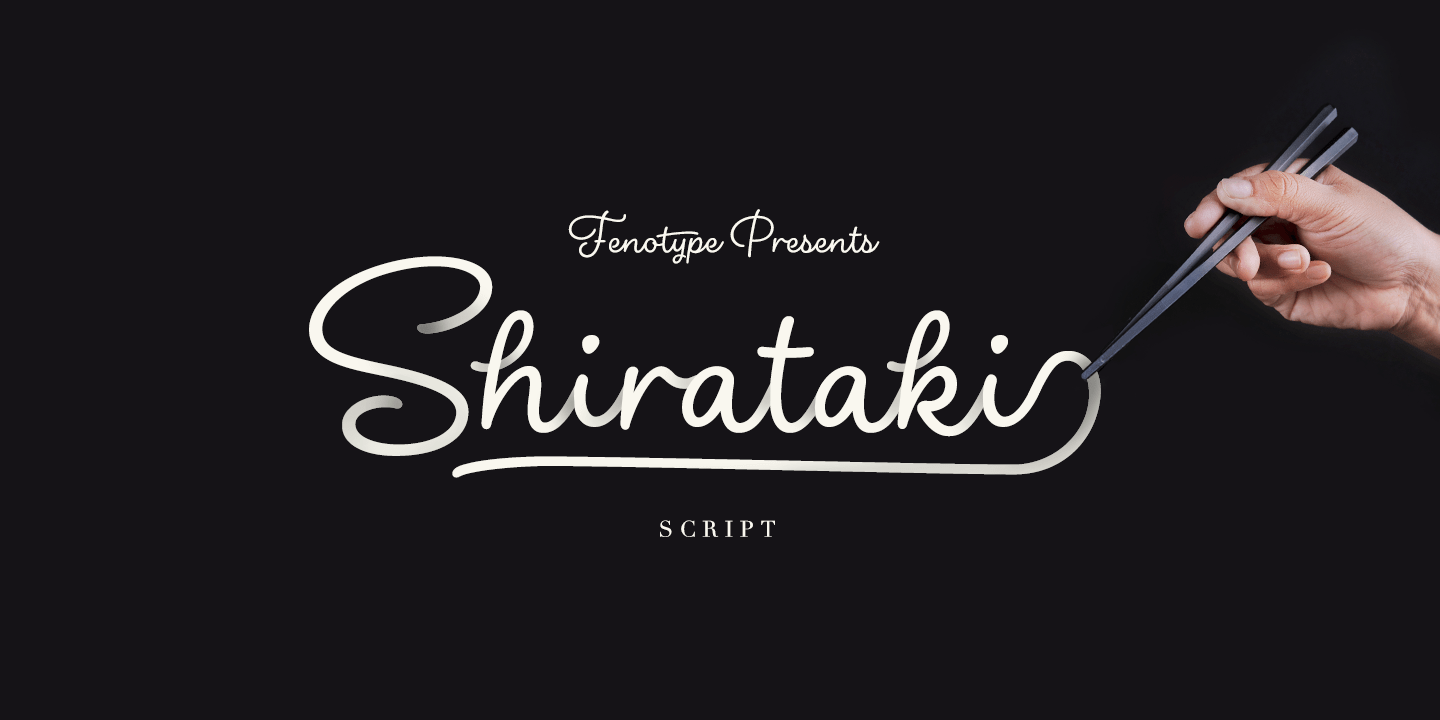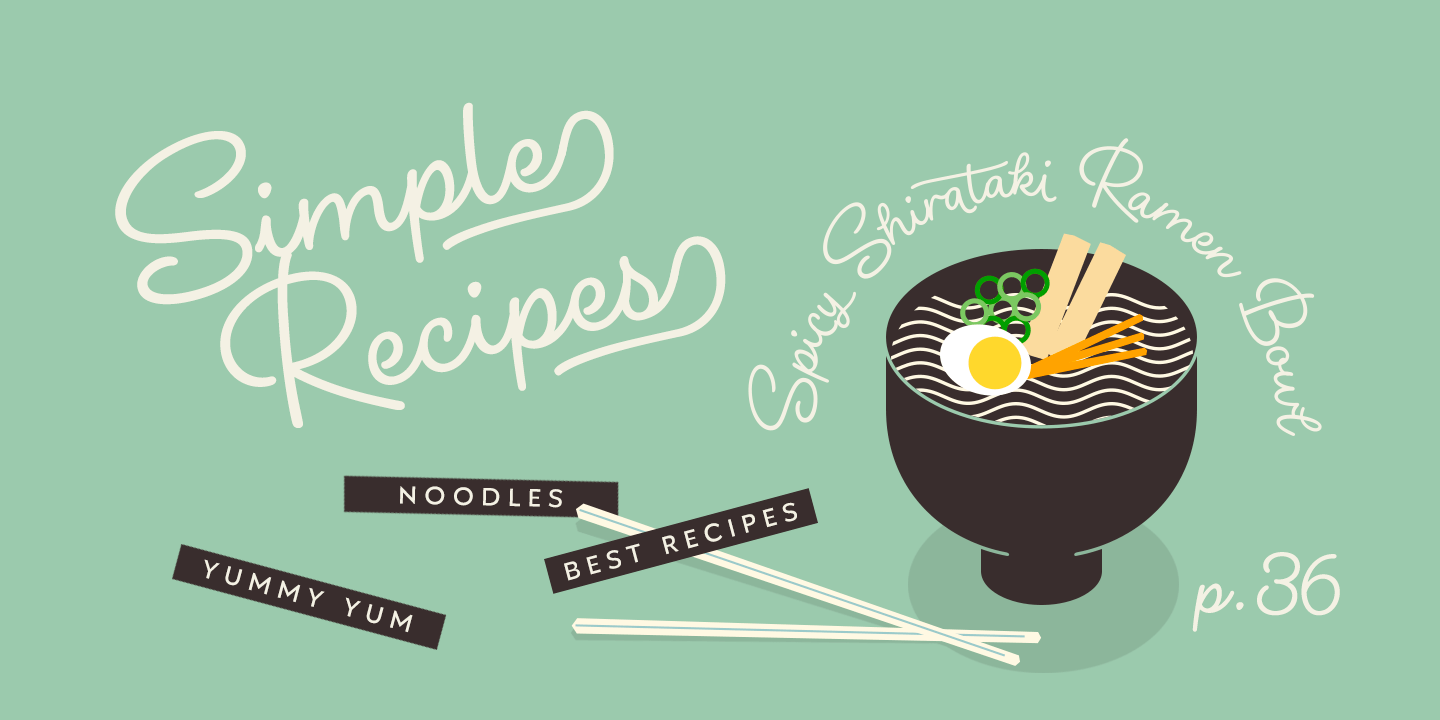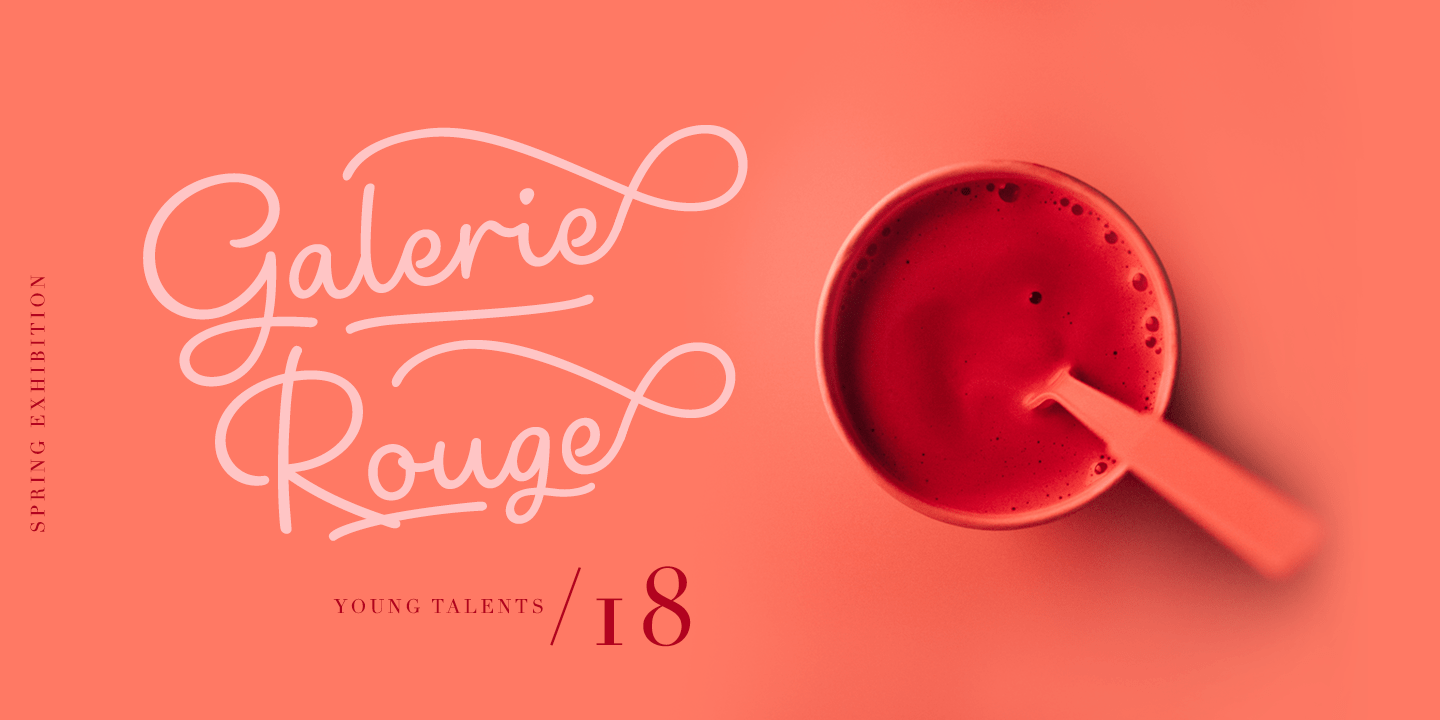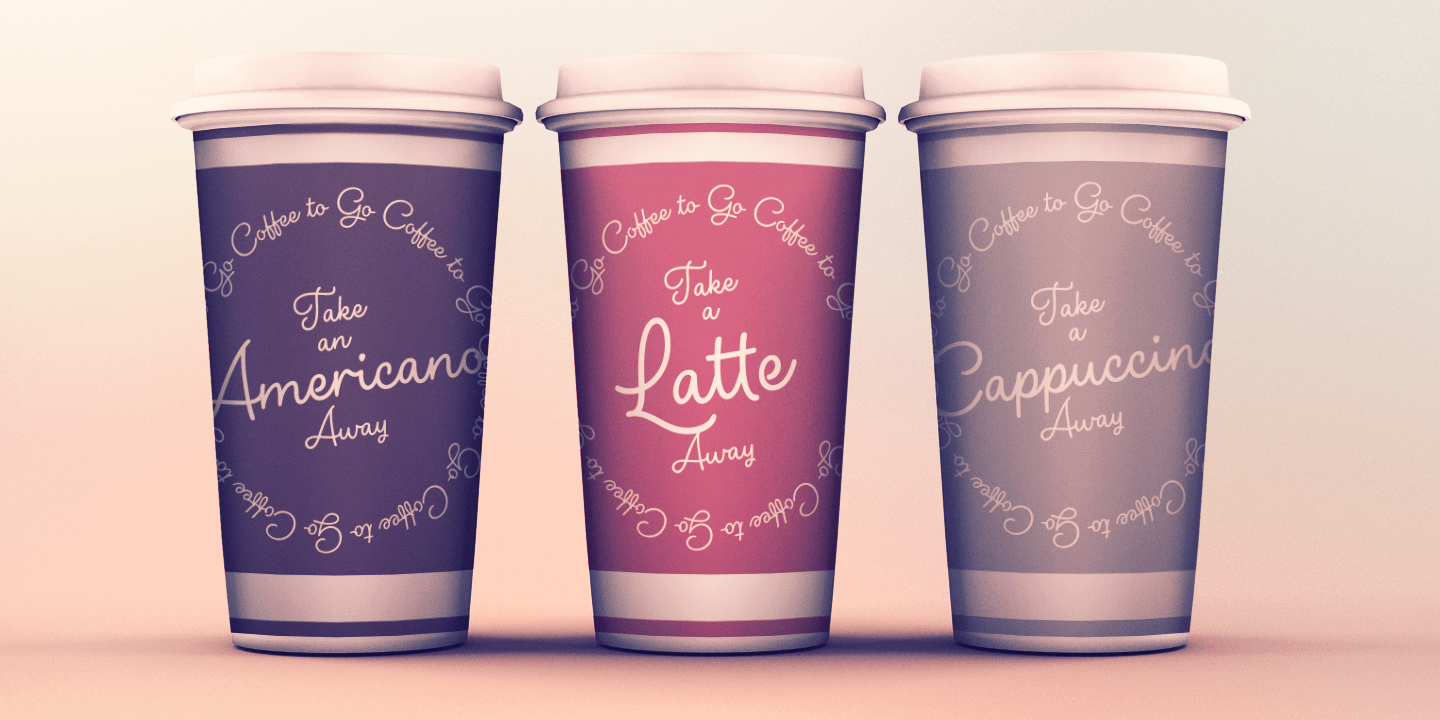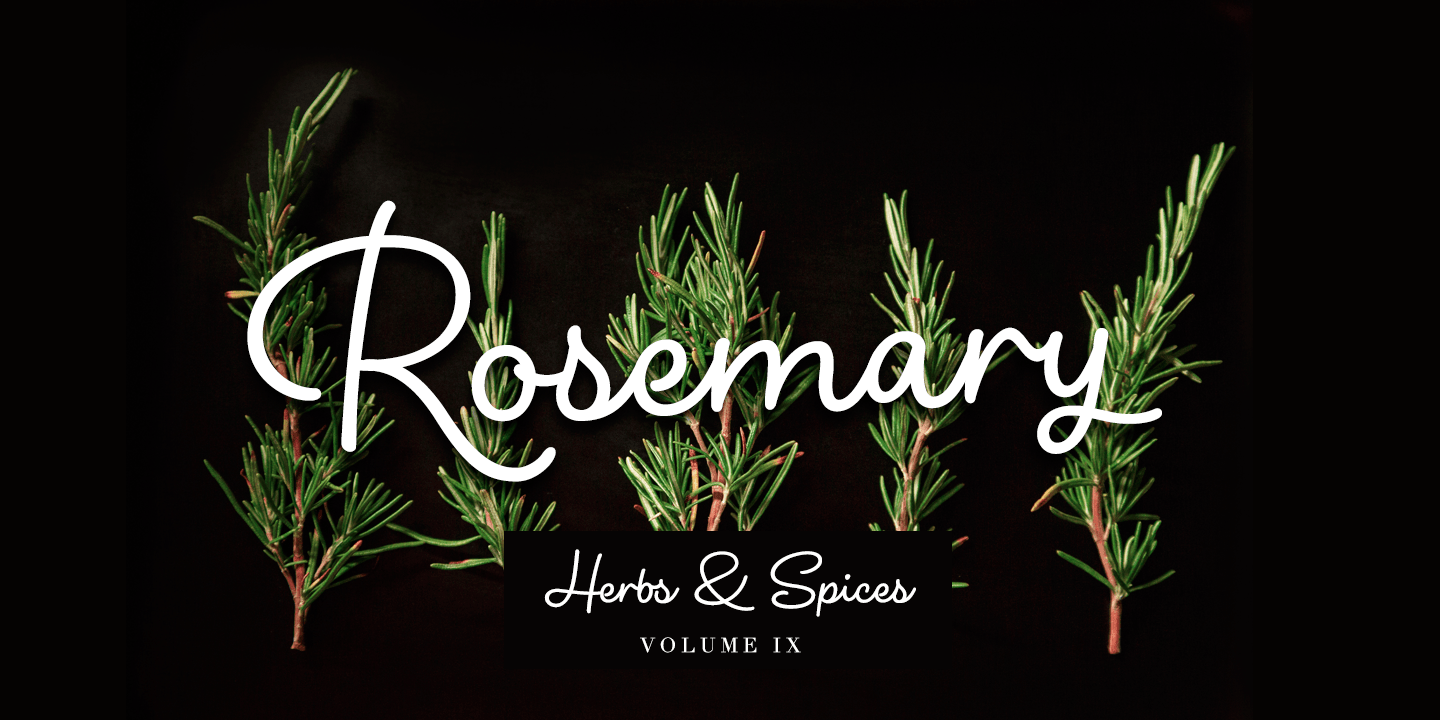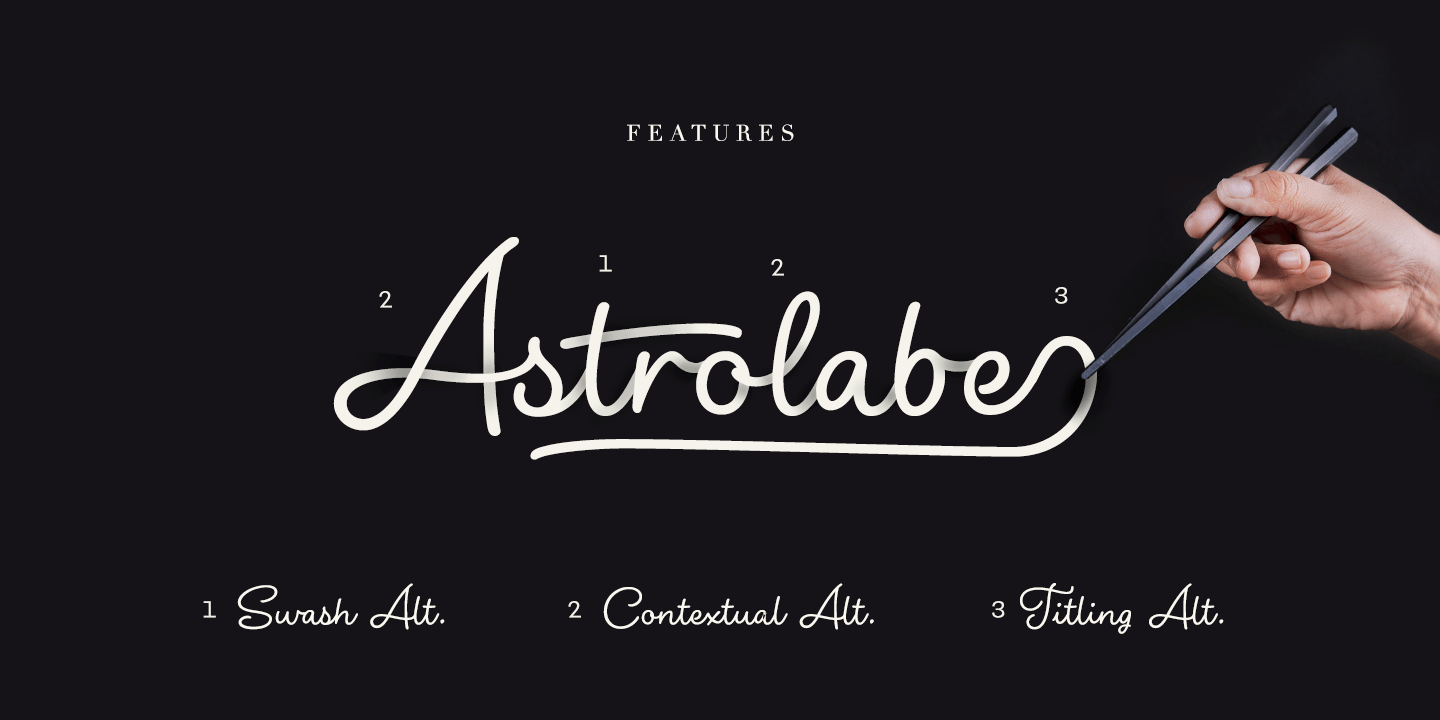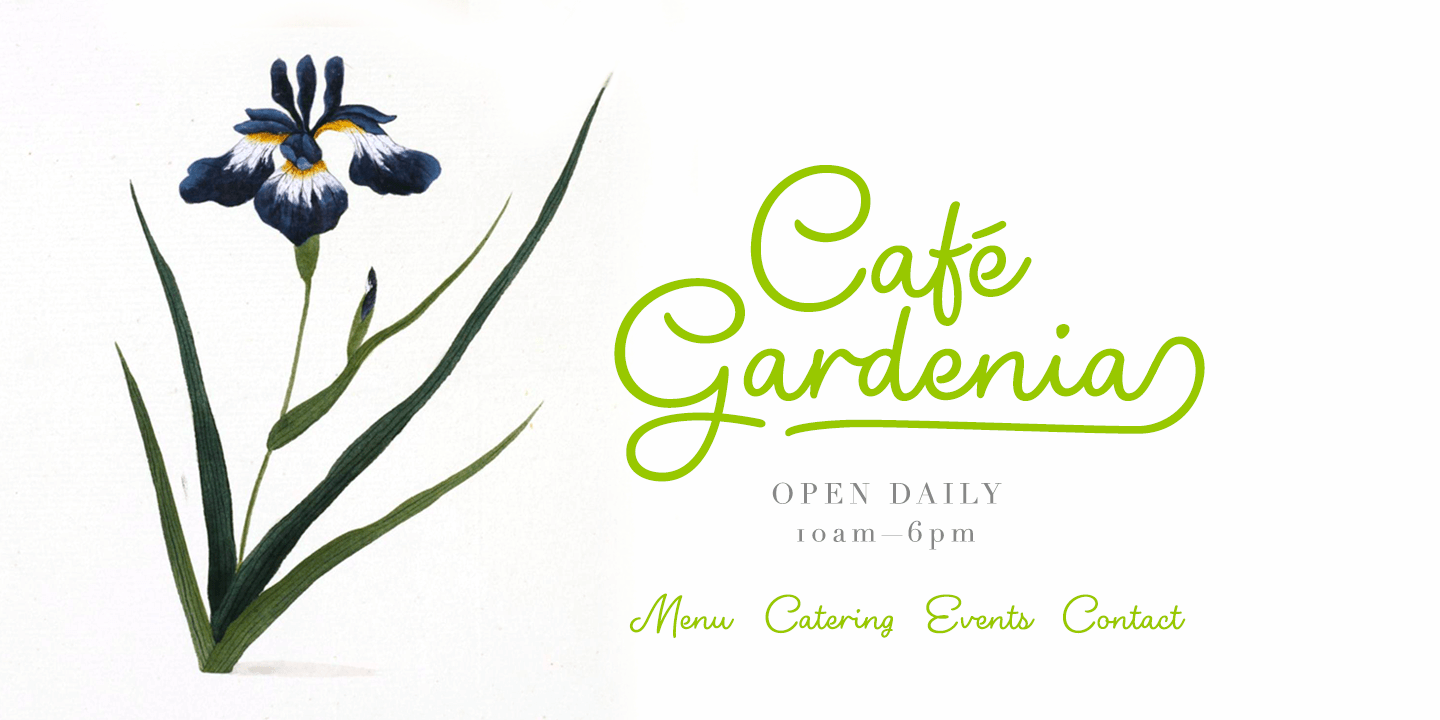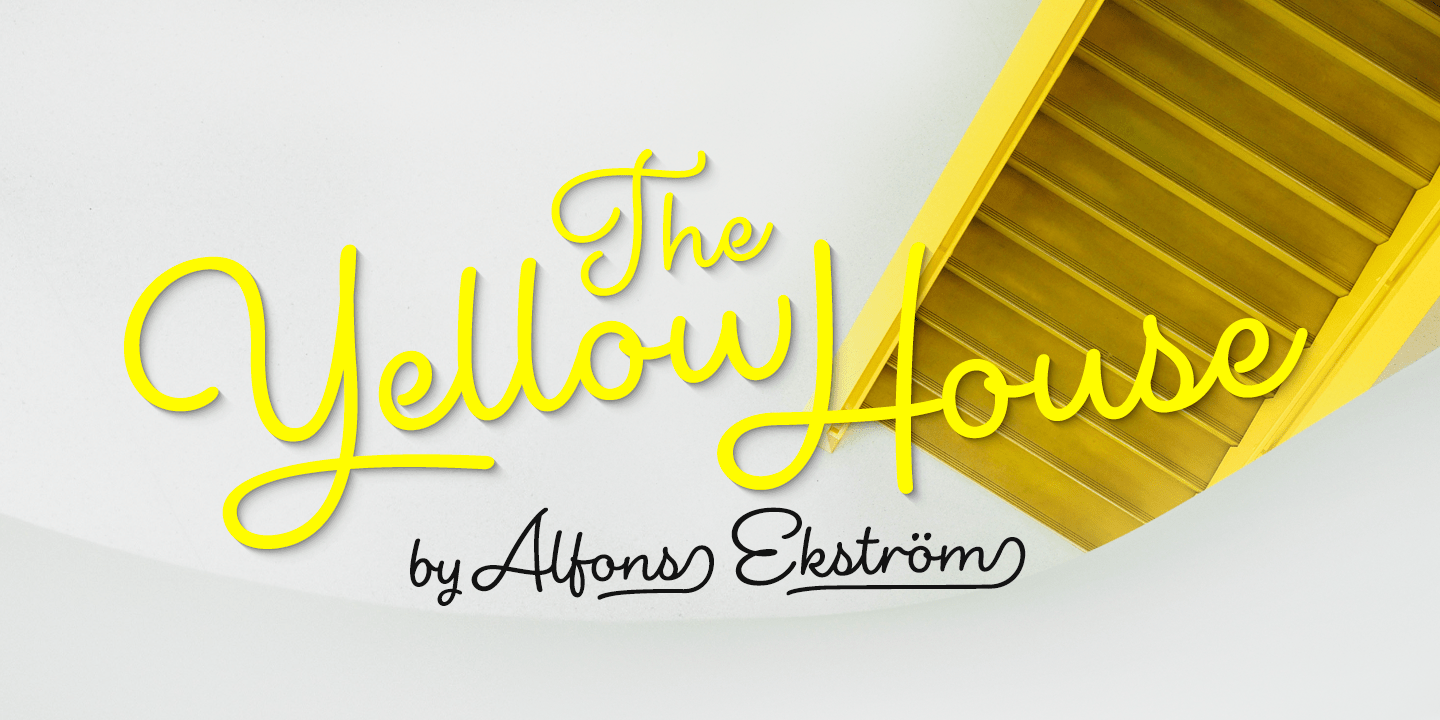
Shirataki
Shirataki is a soft pen script with clear round letter shapes and large display capitals. Shirataki has really low contrast -it's almost monolinear. Shirataki is a clear and friendly display script ideal for logo, signature, packaging, poster or headline purposes.
Shirataki uses Contextual Alternates to keep the connections smooth and it has Swash alternates for every standard letter. There's even more alternates in glyph palette. There's also a set of swash endings coded in Titling Alternates and set in lowercase letters. In addition there's a selection of strokes set in uppercase A-H.
In case you were wondering Shirataki are Japanese yam noodles.